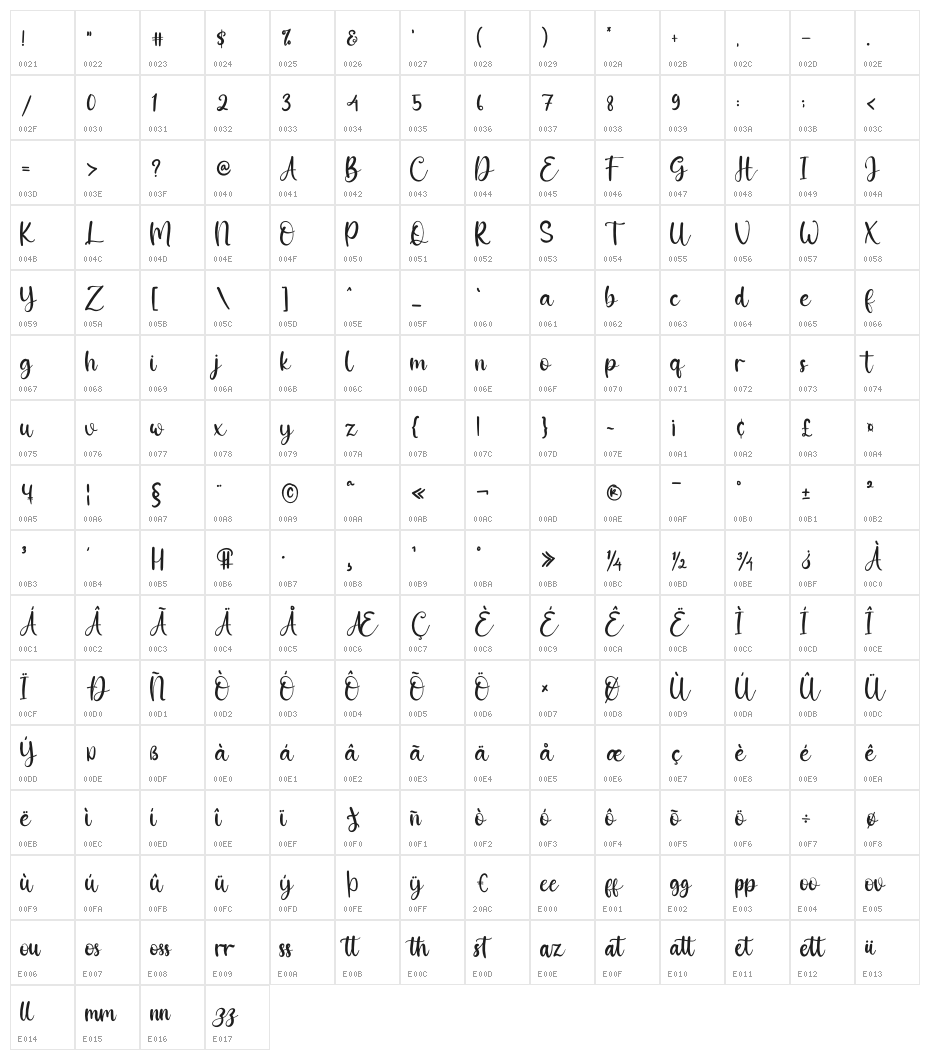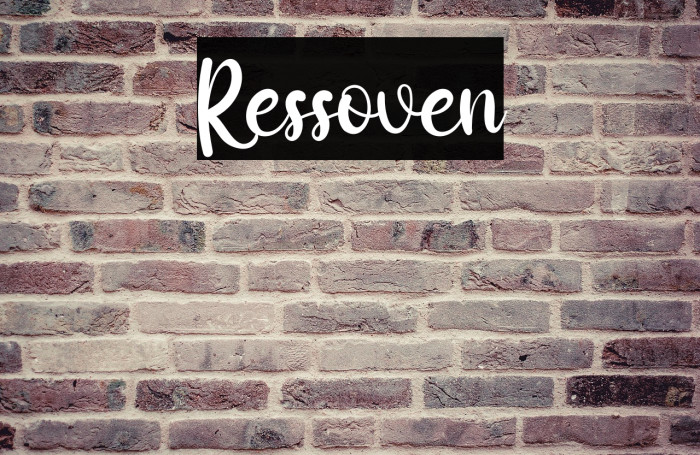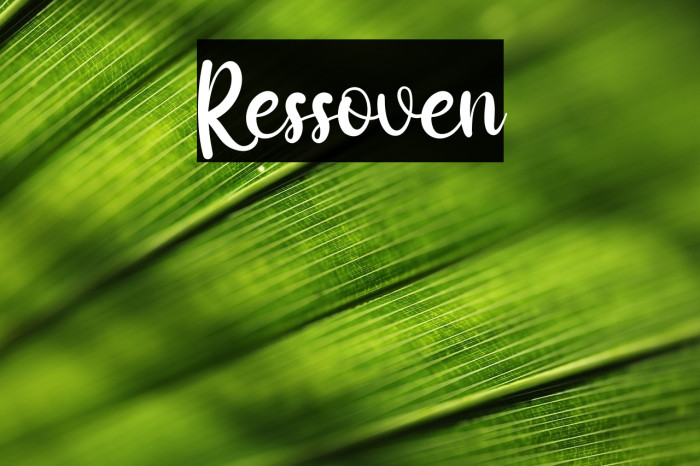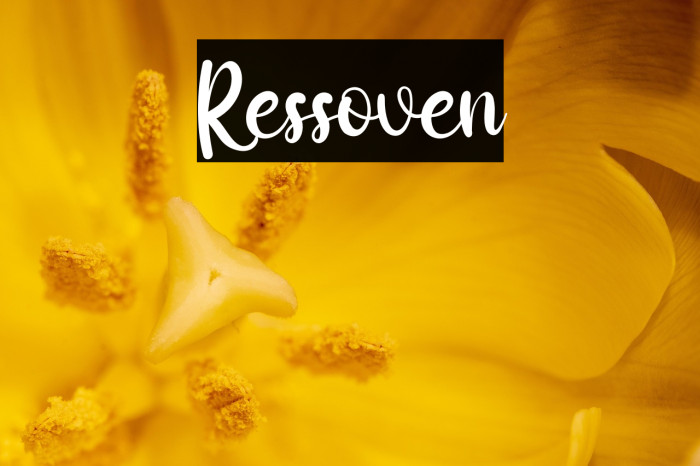
Ressoven Font
Ressoven Description
This font features a playful and energetic script style with a handwritten appearance. The letters are characterized by their flowing, cursive forms and varying stroke widths, giving it a dynamic and lively feel. The uppercase letters are bold and expressive, while the lowercase letters maintain a consistent rhythm and flow. The numerals are distinct and maintain the same playful style as the letters. Special characters are well-integrated, matching the overall aesthetic. This font is ideal for projects that require a personal touch or a sense of creativity and fun.
| Proposed Projects | Ideal for greeting cards, invitations, branding, and social media graphics. |